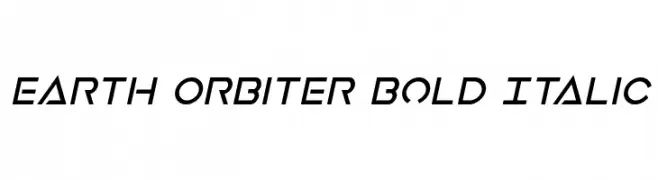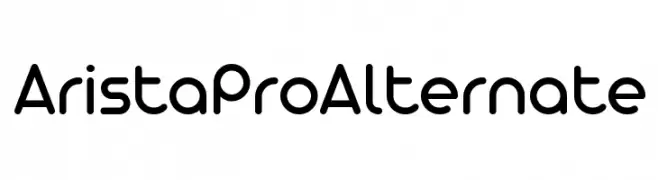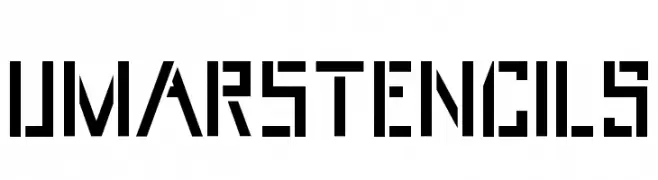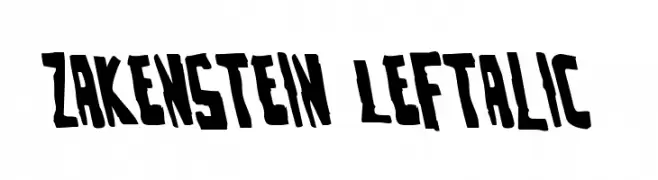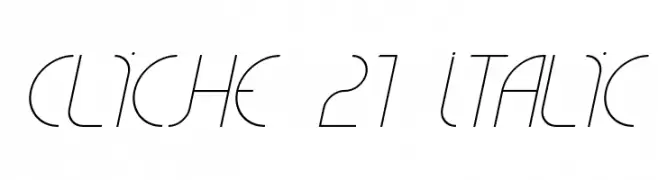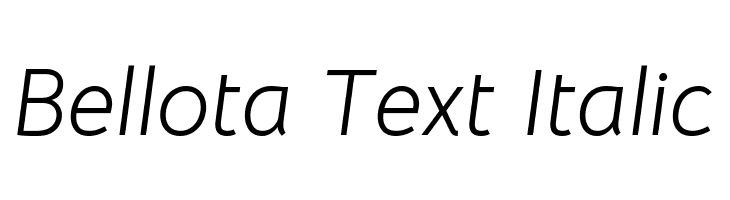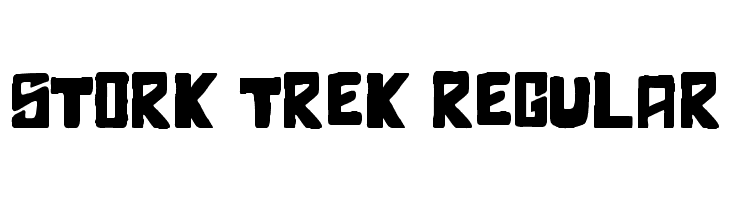
A bold, italicized font with a futuristic and dynamic style.
A modern, rounded sans-serif font with a friendly and approachable style.
A flowing script font with elegant loops and a sophisticated style.
A bold, decorative font with a playful, comic-style design.
A bold, distressed font with a grunge, ransom note style.
A bold, italicized, distressed font with a pixelated, grunge aesthetic.
A rugged, distressed font with sharp, jagged edges and a rebellious style.
A bold, geometric stencil font with angular edges and cut-out sections.
A bold, jagged font with a chiseled, high-contrast design.